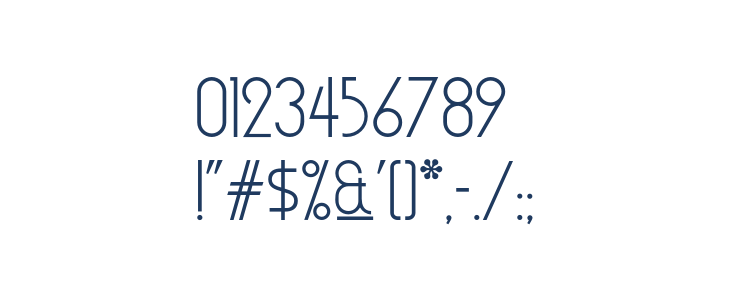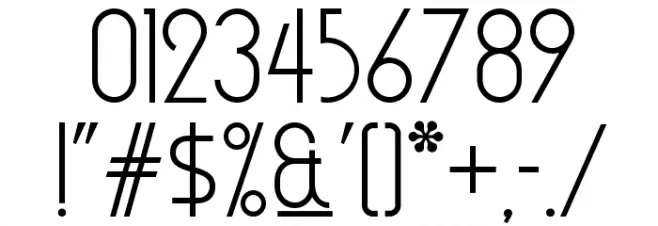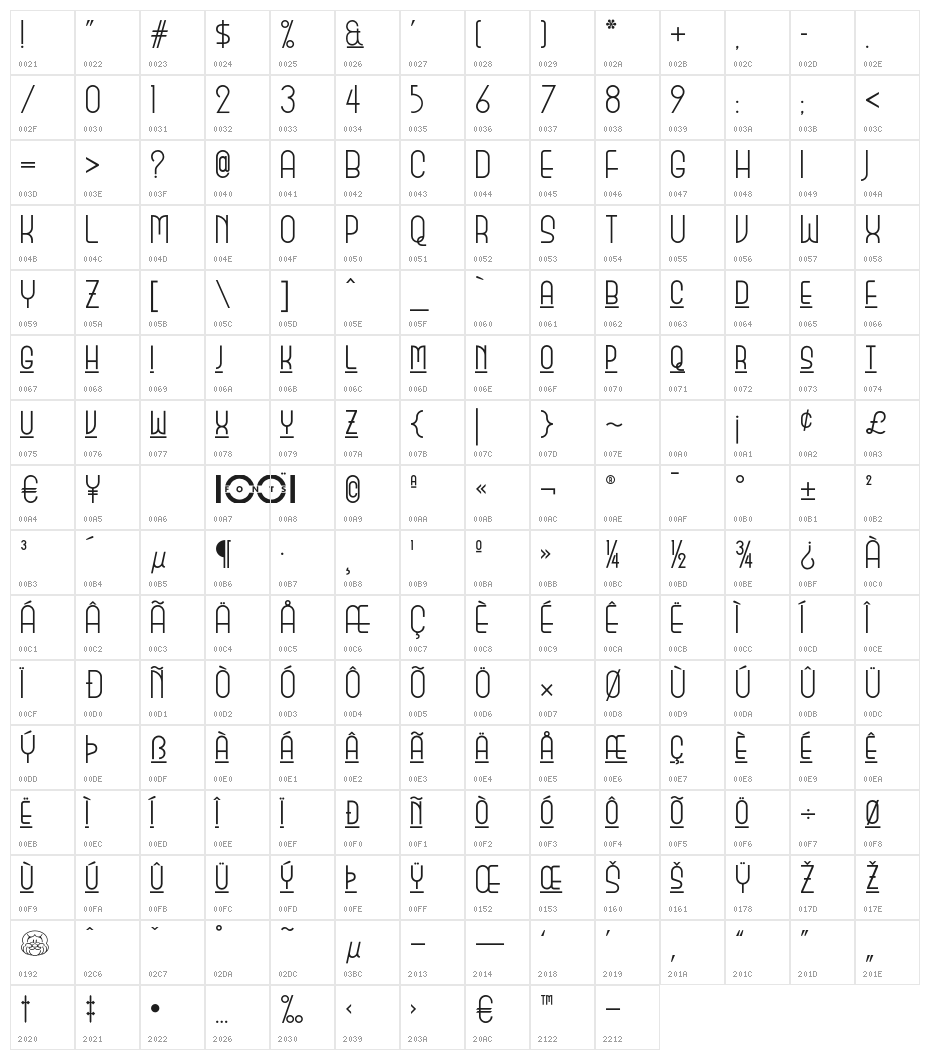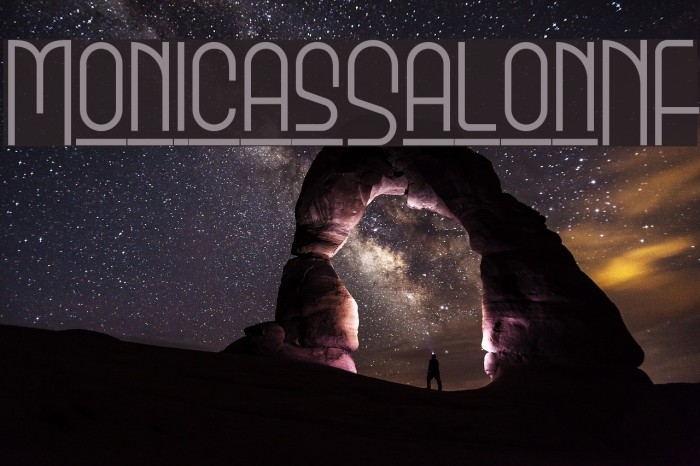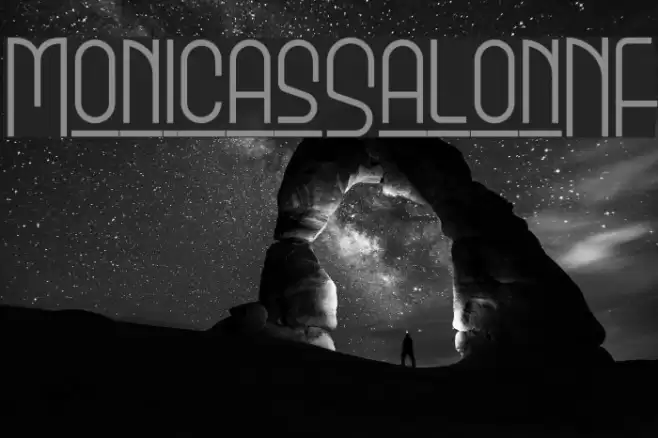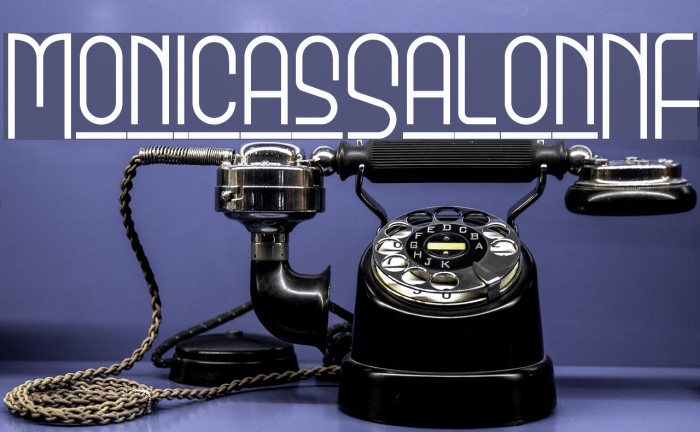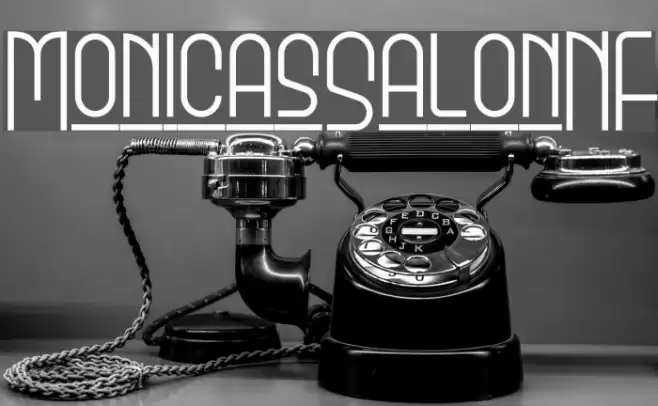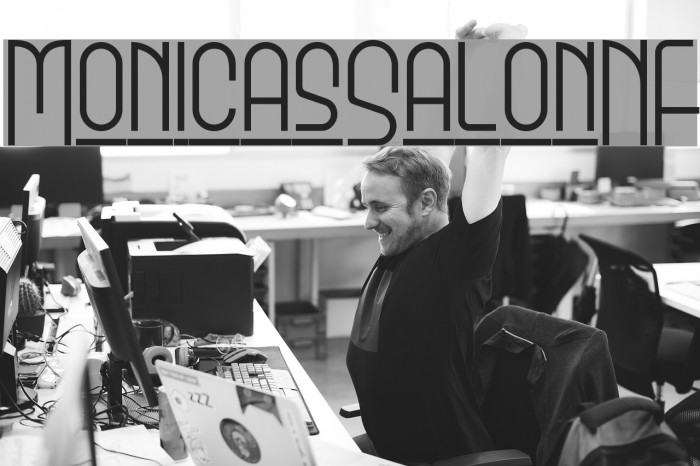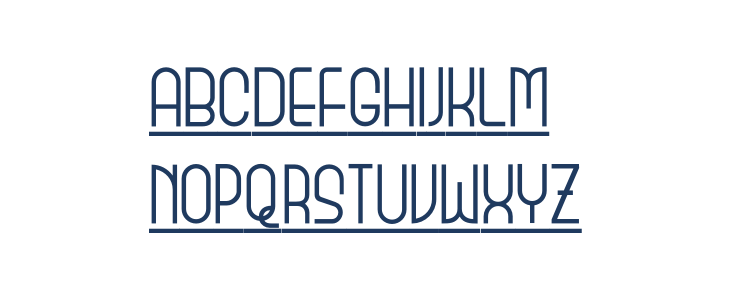
MonicasSalonNF Font
MonicasSalonNF Description
This font features a modern, geometric style with clean, straight lines and a uniform stroke width. The characters are tall and narrow, giving a condensed appearance. The uppercase letters have a distinctive, elongated form, while the lowercase letters maintain a consistent height, creating a harmonious balance. The numerals are similarly styled, with a sleek and contemporary look. Special characters are designed to match the overall aesthetic, ensuring a cohesive appearance across all glyphs. The font's minimalistic design makes it suitable for a variety of applications where a modern and sophisticated look is desired.
| Proposed Projects | Ideal for branding, logos, headlines, and editorial design where a modern and sleek aesthetic is desired. |